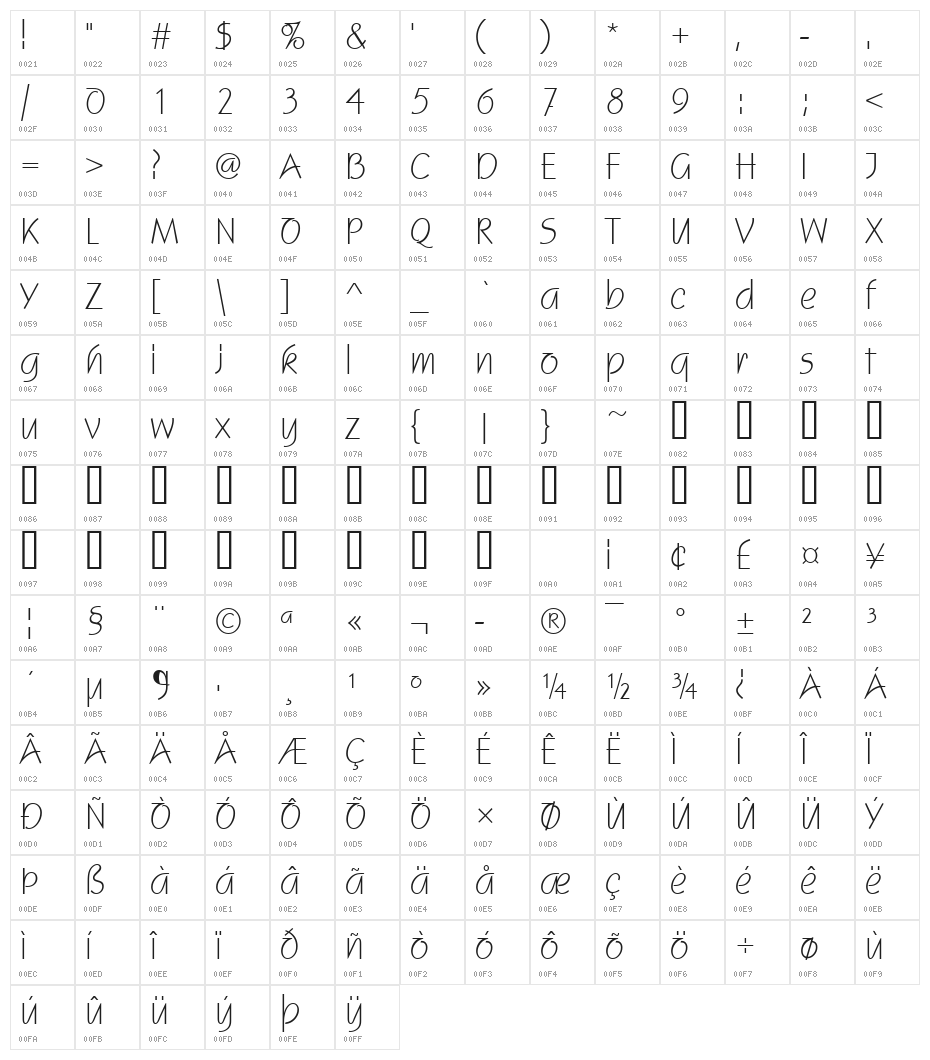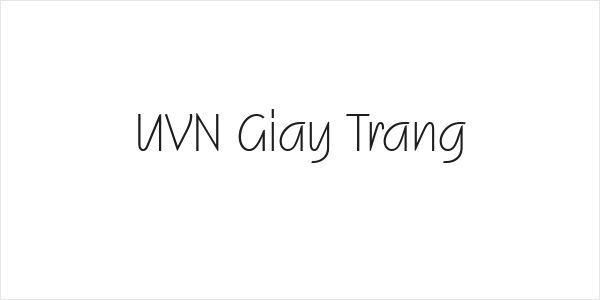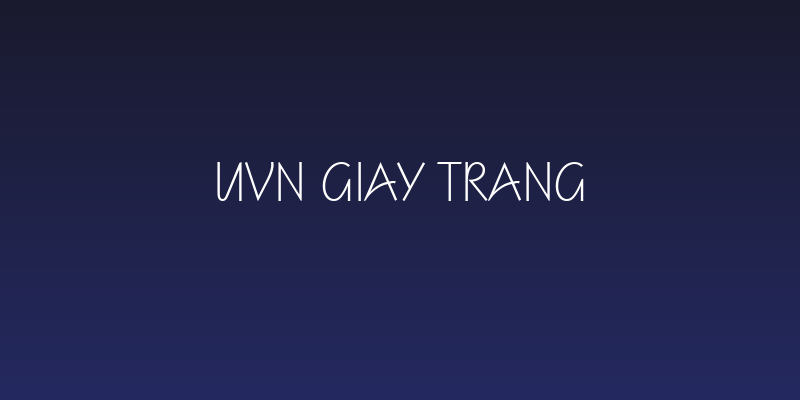
UVN Giay Trang Font
UVN Giay Trang Description
This font features a sleek and modern design with a distinct geometric influence. The characters are crafted with clean lines and a slight curvature, giving them a unique and elegant appearance. The uppercase letters are tall and narrow, while the lowercase letters maintain a consistent flow with rounded edges. Numbers and special characters are designed to complement the overall style, maintaining the same geometric and minimalistic approach. The font's thin strokes and balanced proportions make it suitable for a variety of design applications.
| Use Case | Headlines, Logos, Editorial design |
| Proposed Projects | Ideal for branding, editorial design, and digital interfaces where a modern and sophisticated look is desired. |